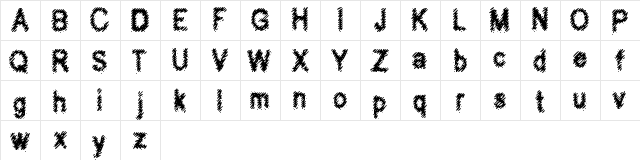
Hubbly Regular
Design Context for Hubbly Typeface
Hubbly is a composed and adaptable typeface that performs quietly and consistently across a wide range of design contexts.